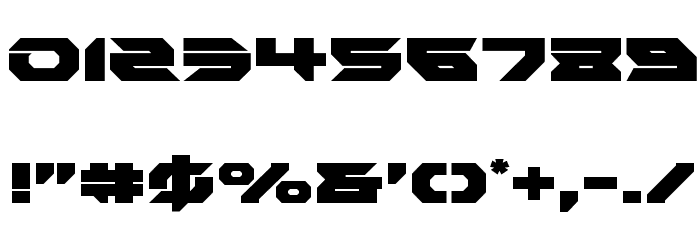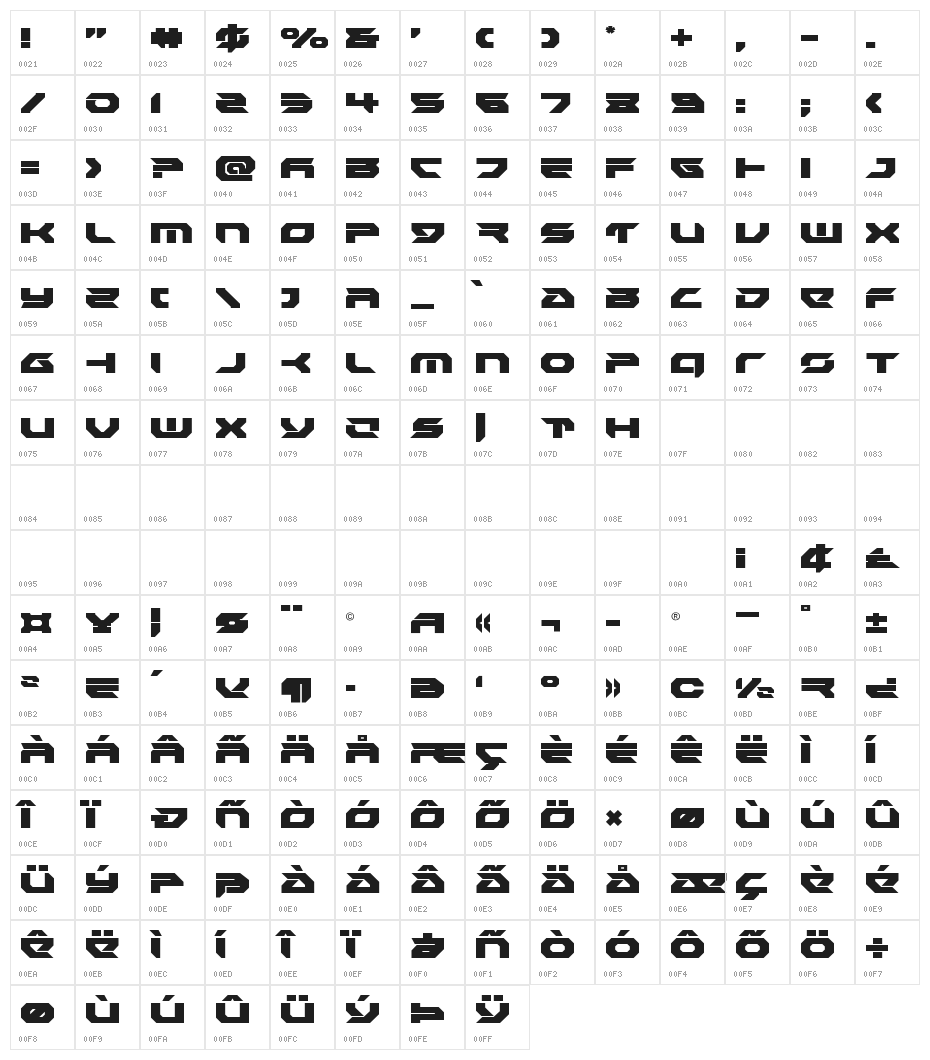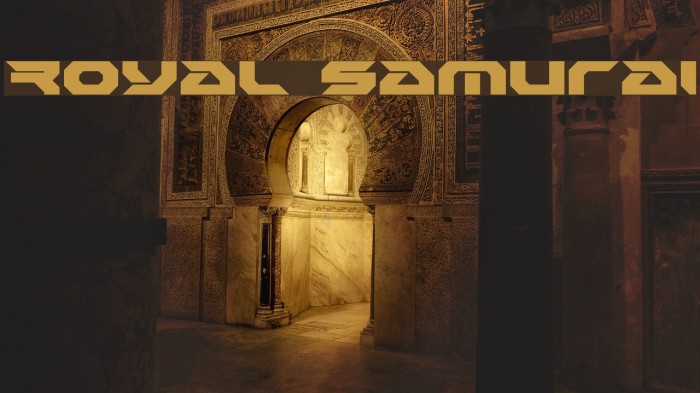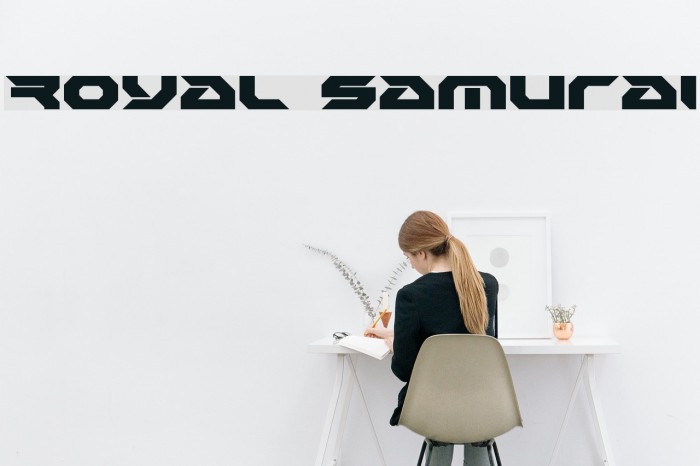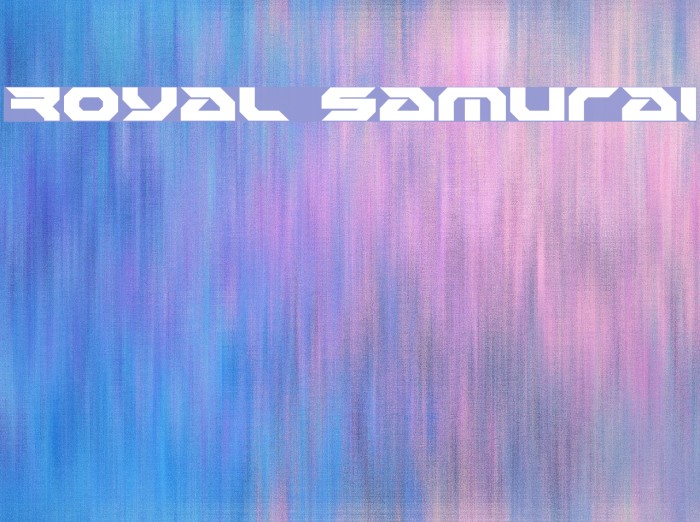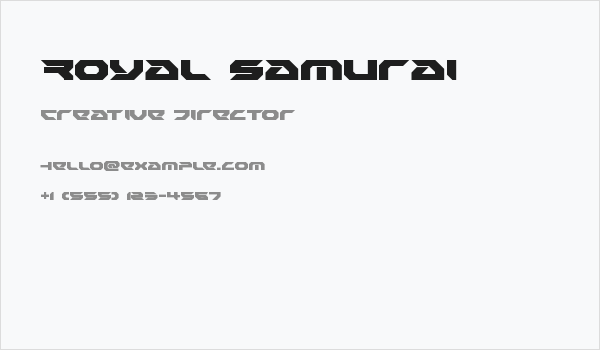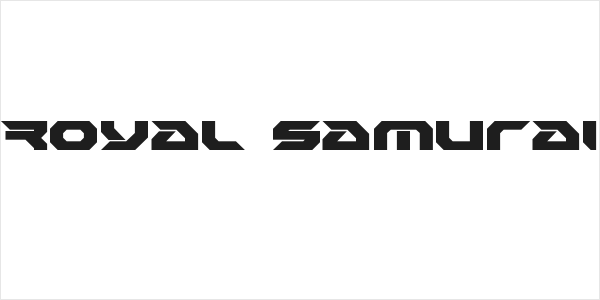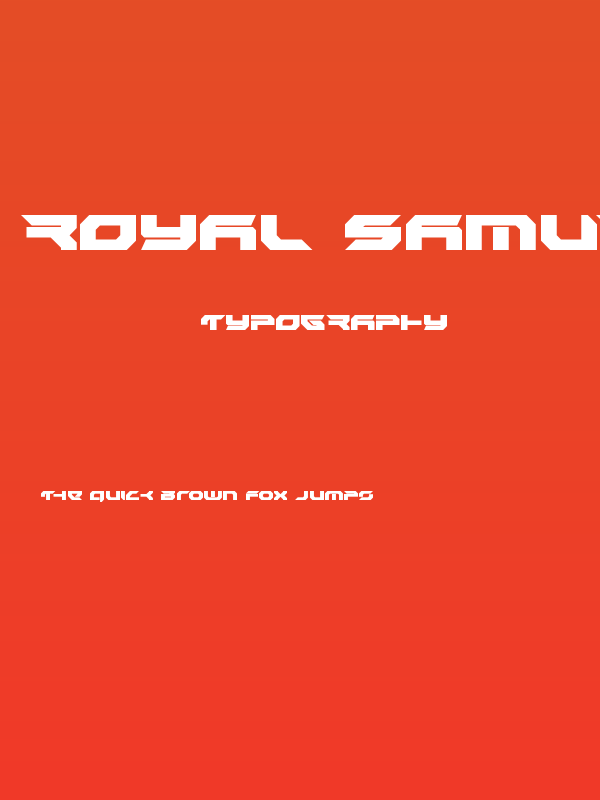
Royal Samurai Font
Royal Samurai Description
This font features a bold, geometric design with sharp, angular edges that evoke a sense of modernity and strength. The characters are constructed with a futuristic aesthetic, incorporating a mix of straight lines and diagonal cuts that create a dynamic and aggressive appearance. The uppercase and lowercase letters maintain a consistent style, ensuring uniformity across different text sizes. Numbers and special characters are designed to match the boldness and angularity of the alphabet, making them suitable for impactful displays. The font's unique style is reminiscent of sci-fi themes, making it ideal for projects that require a strong, modern, and edgy look.